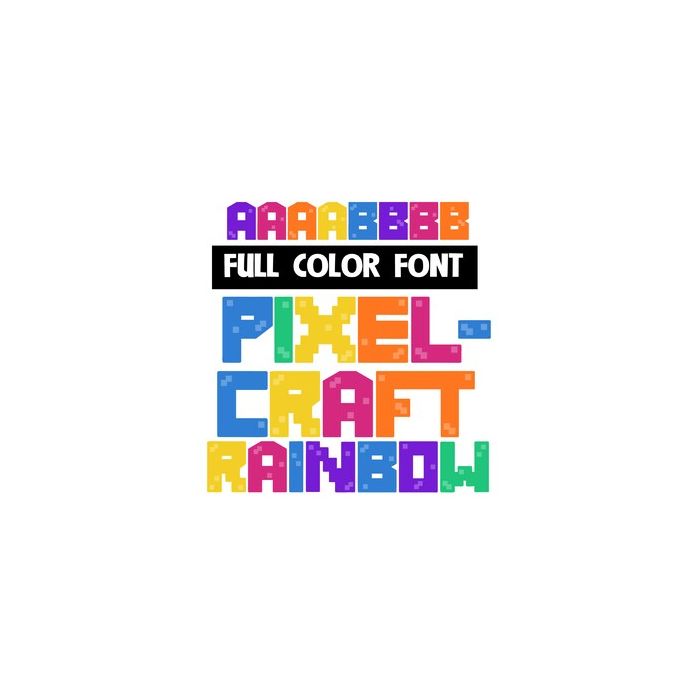
This full-color font features blocky, pixelized font in a rainbow color palette. There is an alt case w/ additional colors you can access through your system or Silhouette's glyph map.